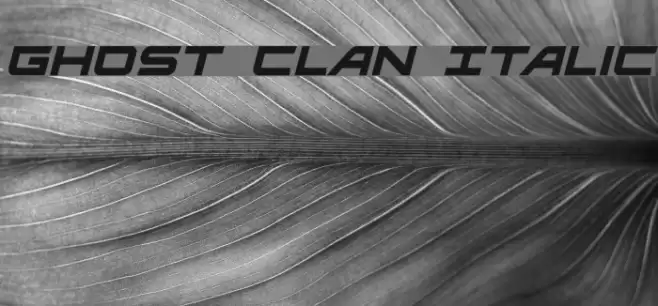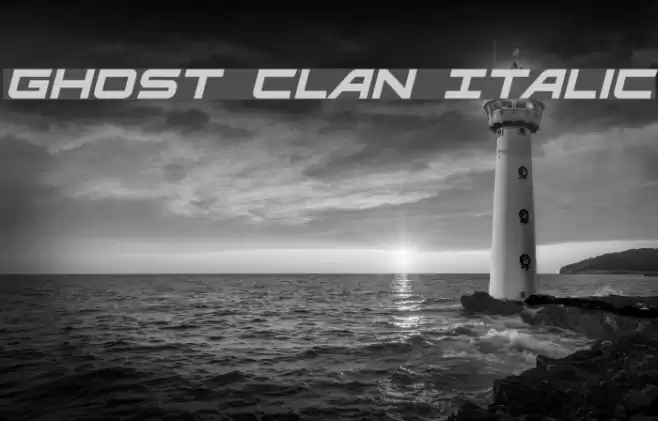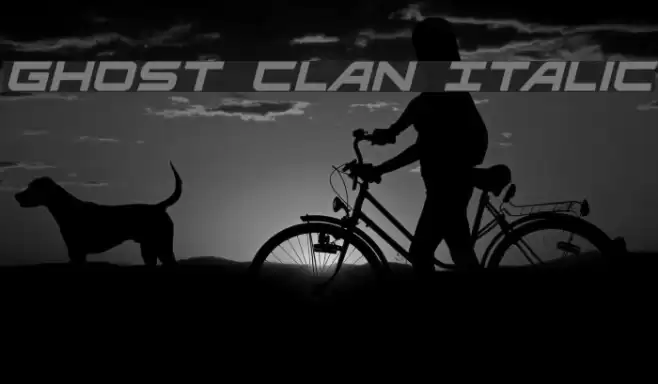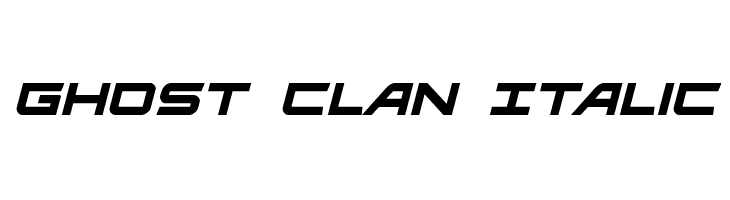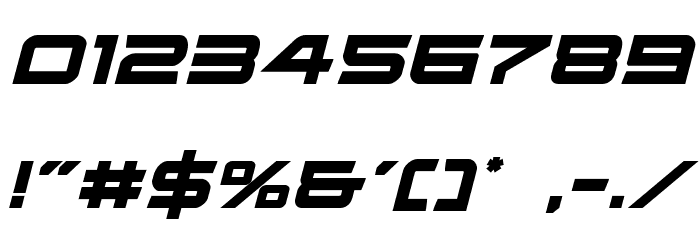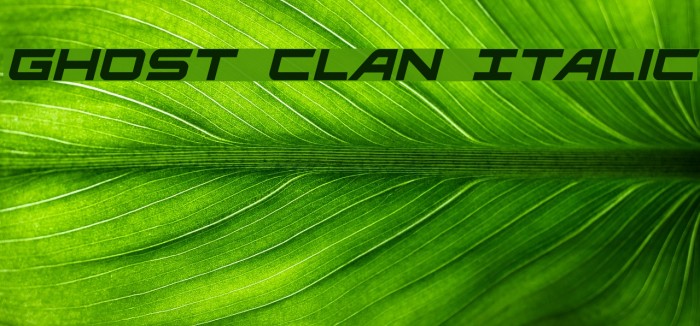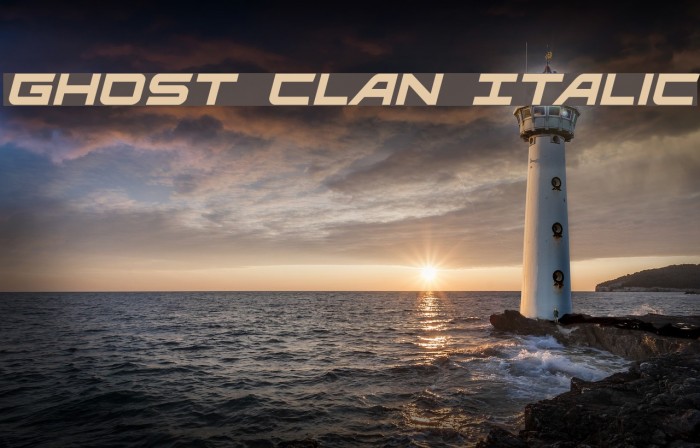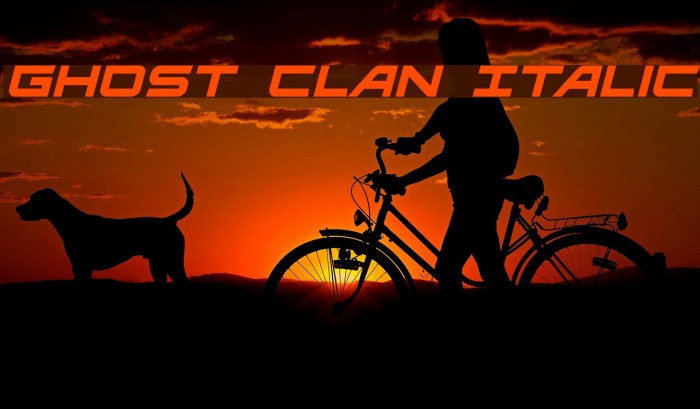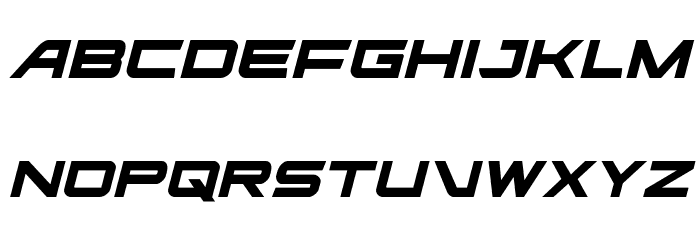
Ghost Clan Italic Font
Ghost Clan Italic Description
This font features a dynamic and modern design with a distinct italic slant, giving it a sense of motion and speed. The characters are bold and angular, with sharp edges and a futuristic aesthetic. The uppercase letters are uniform in height, while the lowercase letters maintain a consistent style that complements the uppercase. The numerals are clear and easy to read, matching the overall angular design. Special characters are included, maintaining the same bold and italicized style. This font is ideal for projects that require a modern and edgy look, such as technology branding or sports-related materials.
A bold, italicized font with a modern, angular design from Uncategorized fonts.
- Proposed Projects: Ideal for technology branding, sports materials, and dynamic advertising.